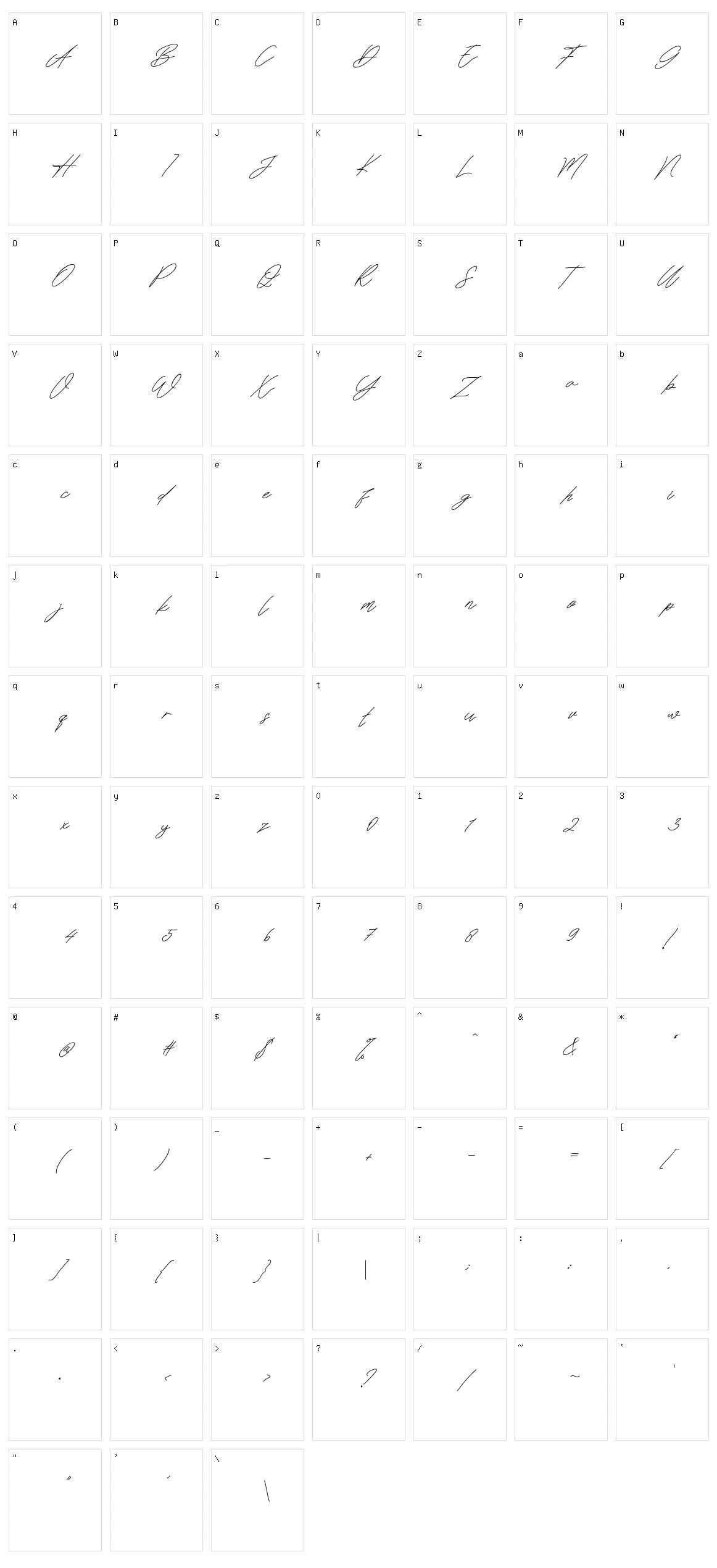
The free font Diays Regon is carefully designed by Teguh Valentino, showcasing a thoughtful balance of creativity and usability and falls under the Script font style. When you download the ZIP file, it contains only 37.98 KB of font files, making it lightweight and quick to download. Please review the license details below to understand permitted usage and distribution rights. If license information is not available, we recommend using this font for personal projects only or contacting the author directly for commercial usage permissions.